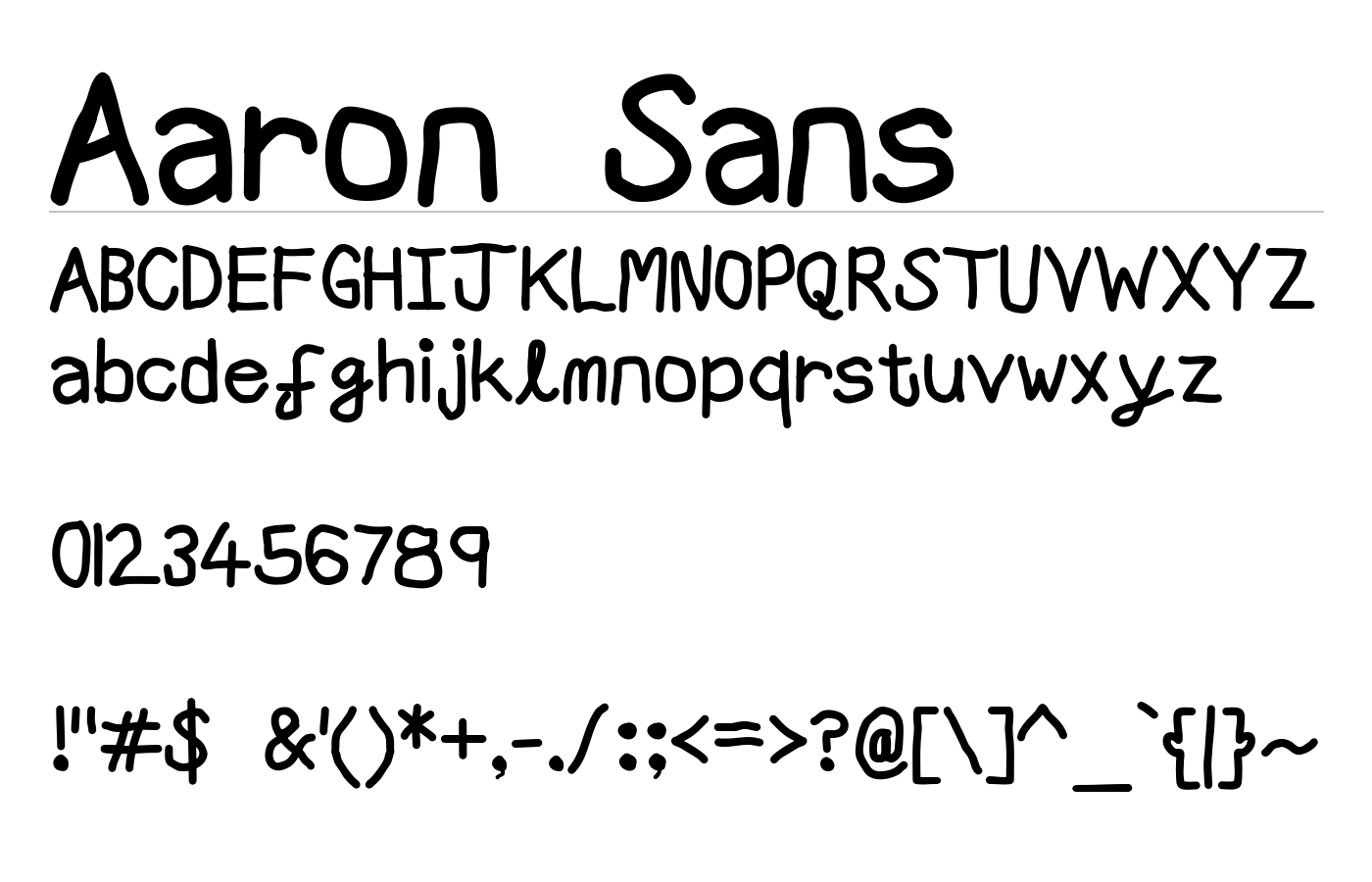
Aaron Sans is a playful, casual sans serif font with a hand-drawn, slightly irregular style that gives it a friendly and approachable feel. Its uneven strokes and quirky letterforms make it ideal for informal designs, children’s books, or creative projects that benefit from a warm, personal touch. This font works well in headlines, logos, and packaging where a fun, human-centered vibe is desired.
Aaron Sans Font